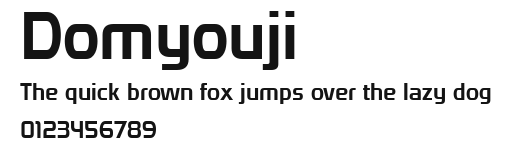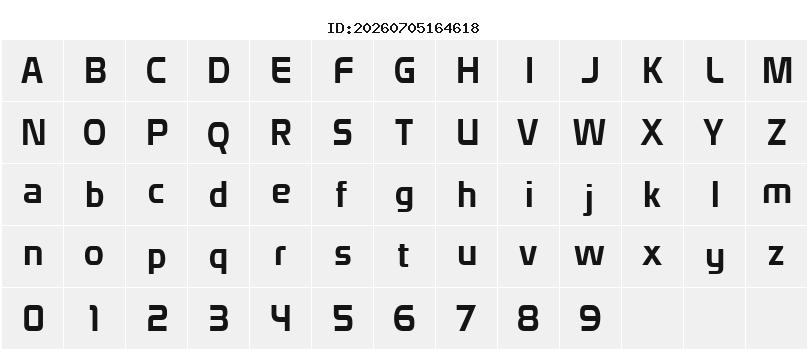
• Font Name: Domyouji
• Font ID: RayLarabie: Domyouji: 2007
• Full Font Name: Domyouji
• Designer: Ray Larabie
• Manufacturer: Ray Larabie
About Domyouji.ttf
Domyouji.ttf is a modern, elegant sans-serif font designed for ultimate readability and visual harmony. Perfect for branding, headlines, web design, and print materials.